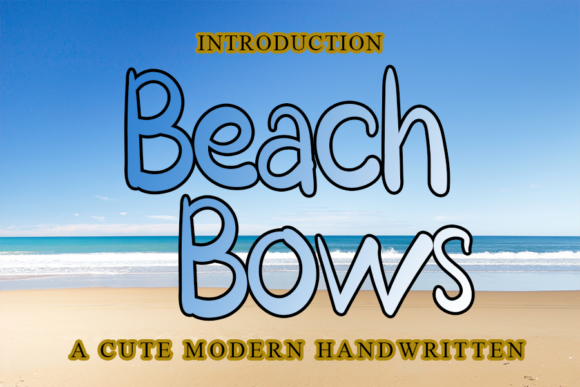
Get Ready to Surf the Wave of Creativity with Beach Bows Font
Have you ever been brainstorming ideas for a project and suddenly, the perfect font pops into your head? That’s exactly what happened to me the other day while working on a summer-themed campaign. I wanted to evoke the feeling of carefree beach days and sunshine, but nothing seemed quite right. That’s when I stumbled upon Beach Bows Font, and it was love at first sight!
Beach Bows Font is a charming handwritten font that brings a playful touch to any design. Its bouncy characters dance along the baseline, creating a sense of movement and energy. With its whimsical style, Beach Bows Font is the perfect addition to any project that needs a dash of personality. Whether you’re a seasoned designer or a creative enthusiast, this font is sure to inspire your next big idea.
Beach Bows Font Key Features
- Font Family: A fun and playful font family consisting of 2 fonts, perfect for beach-themed designs.
- Unique Characteristics: Features a hand-drawn, whimsical design with beach-inspired elements, such as seashells and palm trees.
Designer Review: Beach Bows Font
As a designer, I had high hopes for the Beach Bows Font, and for the most part, it delivers ✨. The font’s playful and whimsical nature makes it perfect for beach-themed projects or any design that requires a carefree vibe. The font’s unique bow-like features add a touch of elegance and sophistication, making it suitable for a wide range of applications.
One of the standout features of the Beach Bows Font is its versatility ✨. It’s available in multiple weights, from light to bold, which allows designers to create a range of moods and tones. The font also comes with a range of ligatures, which adds to its charm and makes it perfect for creative projects.
However, there are a few limitations to the Beach Bows Font that designers should be aware of ⚠️. For one, the font may not be the best choice for large blocks of text, as the ligatures can make it difficult to read. Additionally, the font’s unique features may not be suitable for all design styles or themes.
- Works well for beach-themed projects or designs that require a carefree vibe
- Available in multiple weights and ligatures
- Perfect for creative projects and designs that require a touch of elegance
Overall, the Beach Bows Font is a great addition to any designer’s toolkit. While it may have its limitations, its unique features and versatility make it a valuable asset for designers looking to add a touch of whimsy to their projects.
Getting the Most Out of Beach Bows Font
For best results, use the Beach Bows Font in conjunction with beach-themed graphics and colors.
The Beach Bows Font is ideal for:
- Beach-themed invitations and party decorations
- Summer-themed marketing materials and advertisements
- Beach-inspired social media graphics and posts
Alternatives to Beach Bows Font
Cursive Script
Cursive Script is a beautiful, elegant font that is perfect for wedding invitations, greeting cards, and other formal events. It has a similar cursive feel to Beach Bows Font, but with a more refined and sophisticated look. Use Cursive Script when you need to add a touch of luxury and sophistication to your design.
Great Vibes is a modern, handwritten font that is great for casual and fun designs. It has a similar relaxed feel to Beach Bows Font, but with a more contemporary and trendy look. Use Great Vibes when you need to add a carefree and playful vibe to your design.